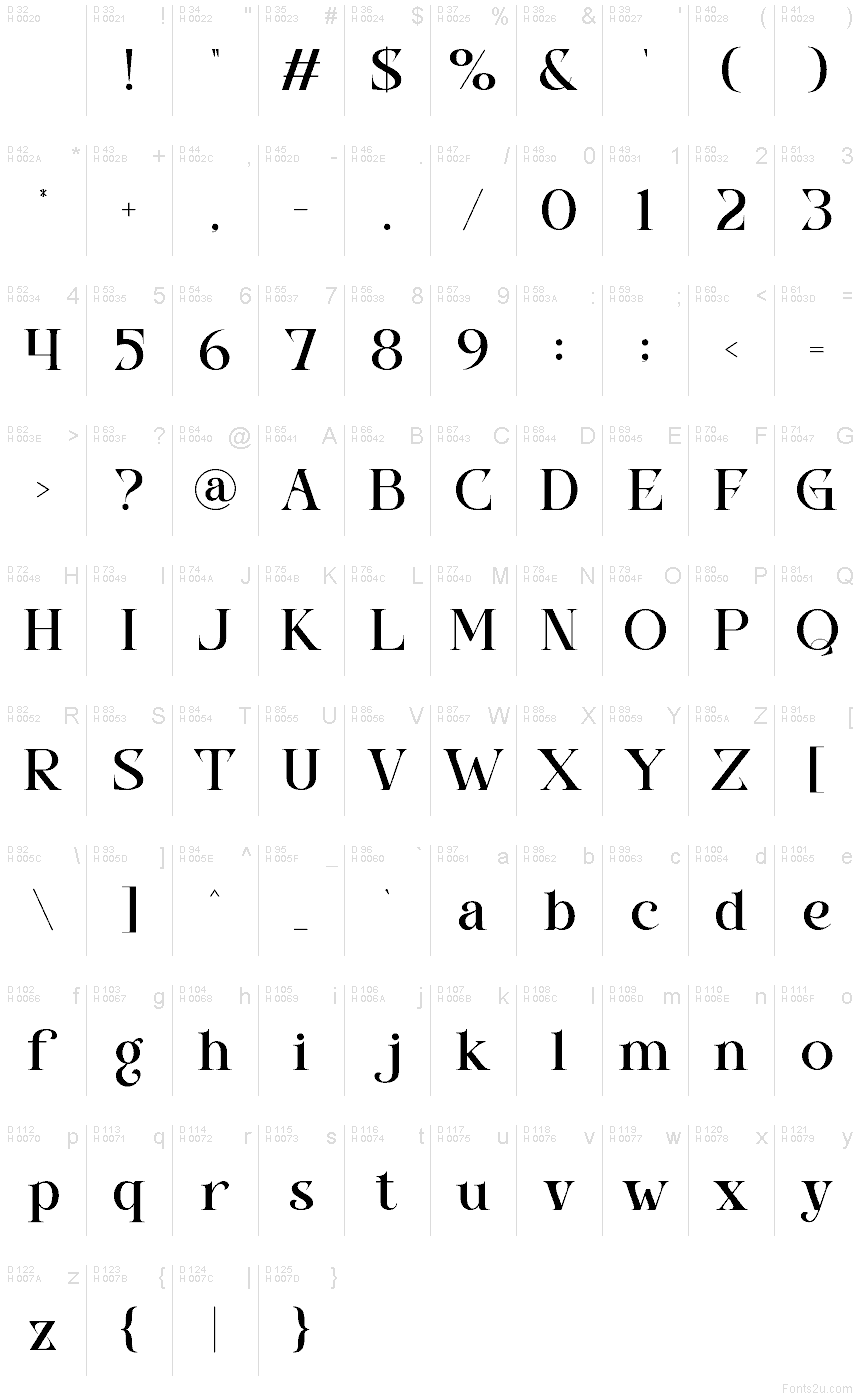
Rolina Vogue
Rolina Vogue font by ErmediaStudio is a free fashion serif. Sharp, inky hairlines slice against plush, rounded curves, while sculpted serifs and a dramatic lowercase flair lend runway poise. It reads like a glossy masthead—crisp, glamorous, and just a touch indulgent—made for statements that linger.
Using Rolina Vogue, headlines feel luxe without shouting. It shines on magazine covers, boutique logos, beauty packaging, lookbooks, event invitations, and hero banners for fashion promotions. The rhythm is tight and refined, so your typography feels curated, not crowded. Pair this free font with a clean grotesque sans to ground body copy and captions.